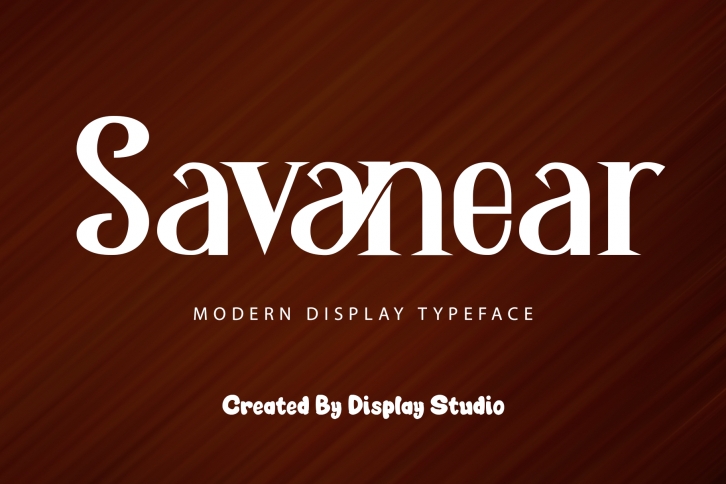
Introducing our new release, Savanear Modern Display Typeface. This typeset is perfect for brand logo, invitations, greeting card, or even any kind of project. With multilingual feature and style variations, this typeface would further enhance the aestethical aspect of your work.